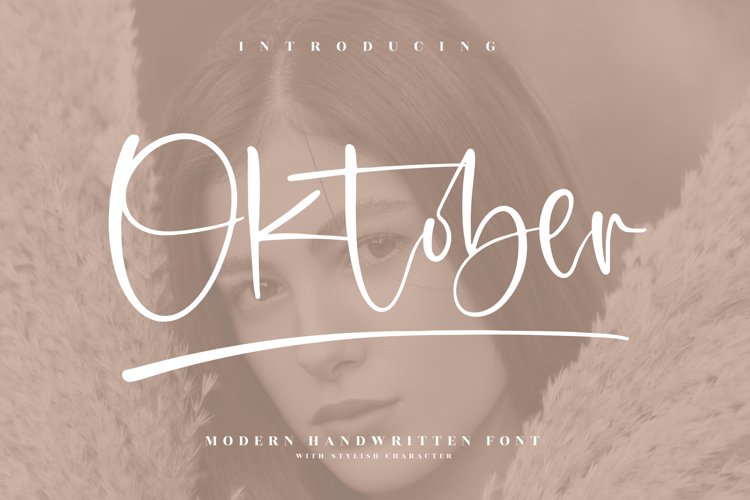
Oktober – Modern Handwritten Font, from Afterpaper Studio, is a beautiful script font, suitable for any projects such as: logos, branding projects, homeware designs, product packaging, mugs, quotes, posters, shopping bags, t-shirts, book covers, name card, invitation cards, greeting cards, label, photography, watermark, special events, and all your other lovely projects that need a beautiful script taste.